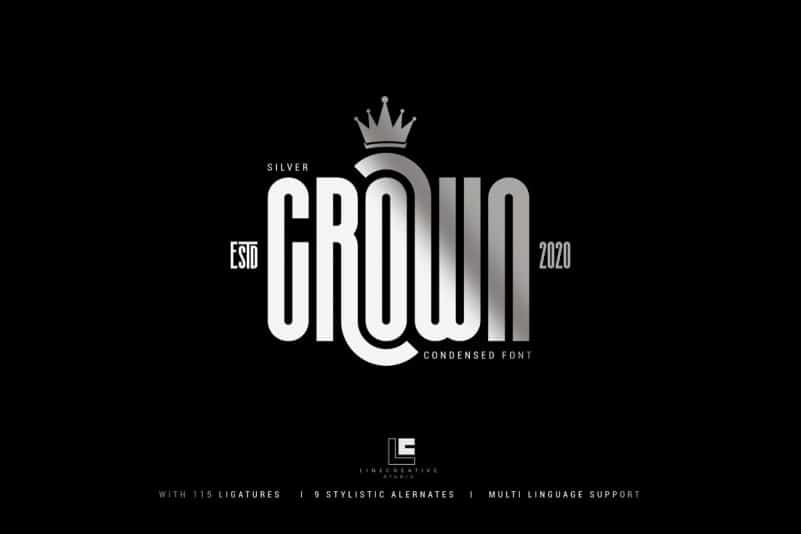
Silver Crown Display Font
Introducing Silver Crown Display Font. It has a elegant, classy look and beauty. When analyzing characters as a whole, it has contrast at style and practice too.
It is a display font from the designer Linecreative. Silver Crown Font- Ultra Condensend font and Minimalis Character, It’s Perfect for logo, name card, magazin layout,headers, or oven large scale artwork